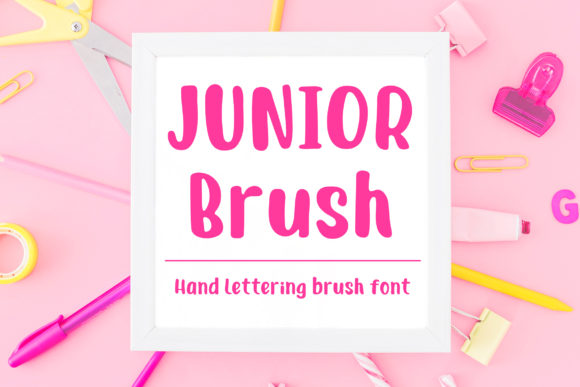
Introducing the Junior Brush Font – A Whimsical and Playful Handwritten Typeface for Kids
Embark on a typographic journey of wonder and imagination with the Junior Brush Font, a captivating script typeface designed to ignite the spark of creativity in young minds. With its playful handwritten style, Junior Brush is the perfect font for creating captivating and engaging content that resonates with children.
Crafted with the utmost care and attention to detail, each character in the Junior Brush Font exudes a sense of innocence and joy. Inspired by the natural flow of a child's handwriting, this font captures the essence of childhood dreams and aspirations. Whether you're creating storybooks, educational materials, or fun and engaging designs, the Junior Brush Font is the perfect choice for adding a touch of magic to your projects.
Immerse yourself in a world where imagination knows no bounds, where every letter is an adventure waiting to be discovered. The Junior Brush Font is not just a font; it's a gateway to a world of limitless possibilities, where children can explore their creativity and express themselves in unique and captivating ways.
- Handwritten style with a Tombow large brush file
- Clean and simple design
- Perfect for creating engaging content for kids
- Ideal for storybooks, educational materials, and fun designs